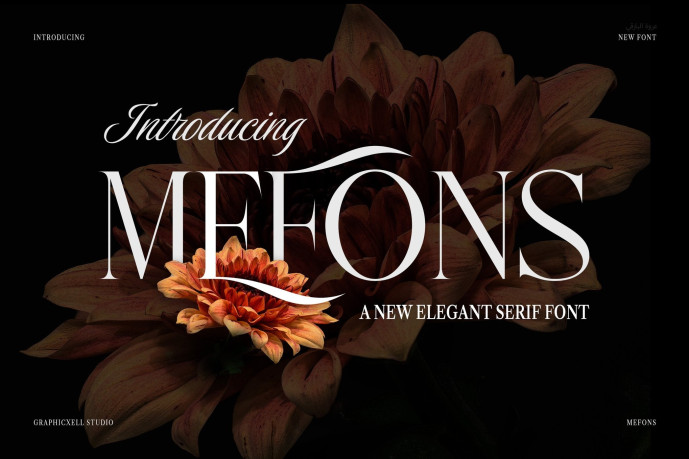
Mefons Elegant Serif Font
Designer: Graphicxell
Mefons Elegant Serif Font is a luxurious and refined typeface designed to capture attention through graceful motion and timeless detail. With its sweeping ligatures, soft curves, and striking contrast, this font brings sophistication to every project. Because of its stylish form, Mefons is ideal for designers who want to blend modern beauty with classic charm.
This elegant serif font was created to balance readability and artistry. Therefore, it fits perfectly in branding, editorial layouts, packaging, fashion lookbooks, and invitation designs. Each letter features smooth transitions between thin and thick strokes, giving your text an elegant flow that feels both professional and expressive.
Key Features of Mefons Font:
• Elegant and modern serif design
• Beautiful alternate characters and unique ligatures
• Ideal for fashion, branding, and luxury design projects
• Perfect for packaging, invitations, and editorial layouts